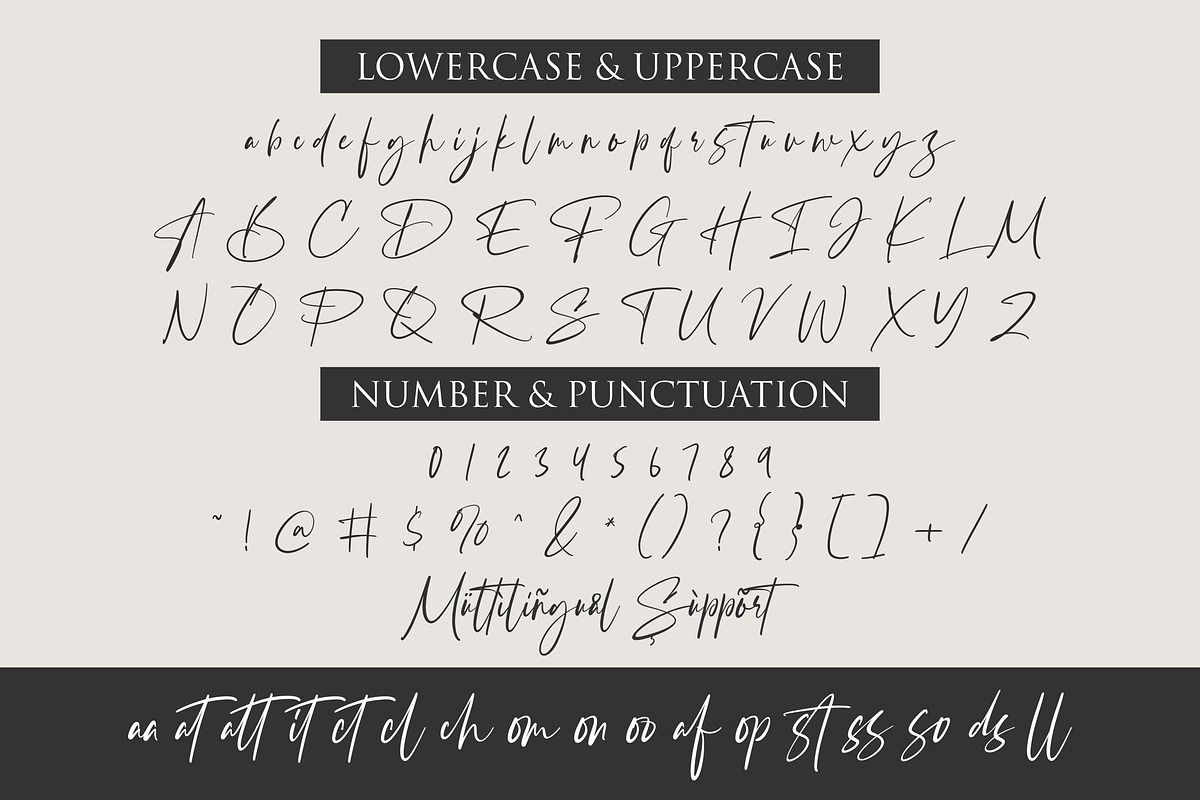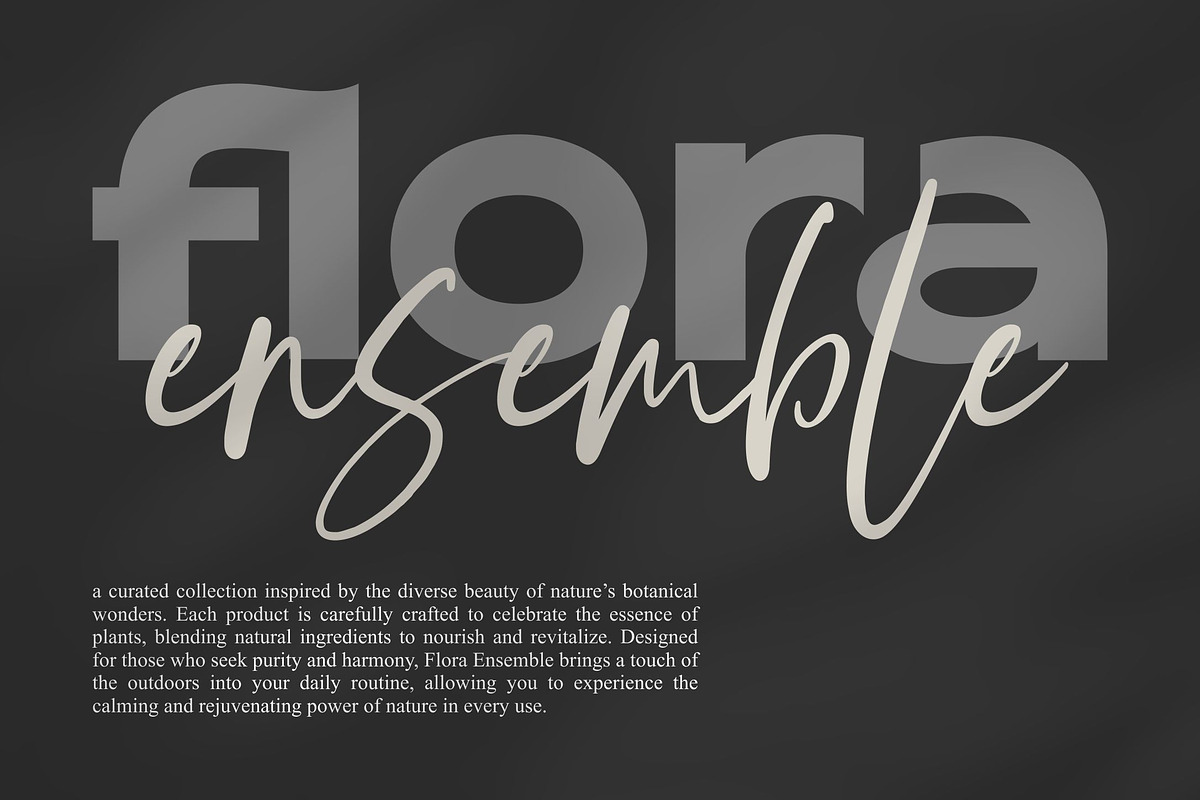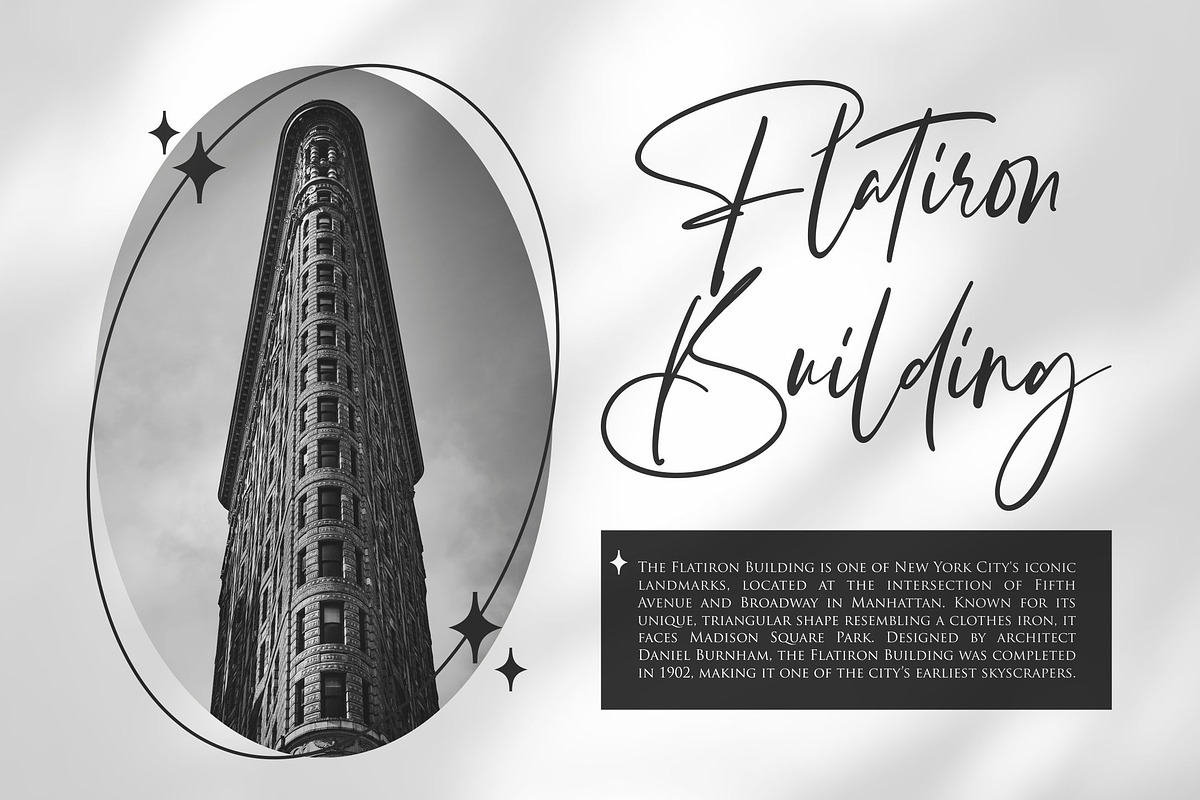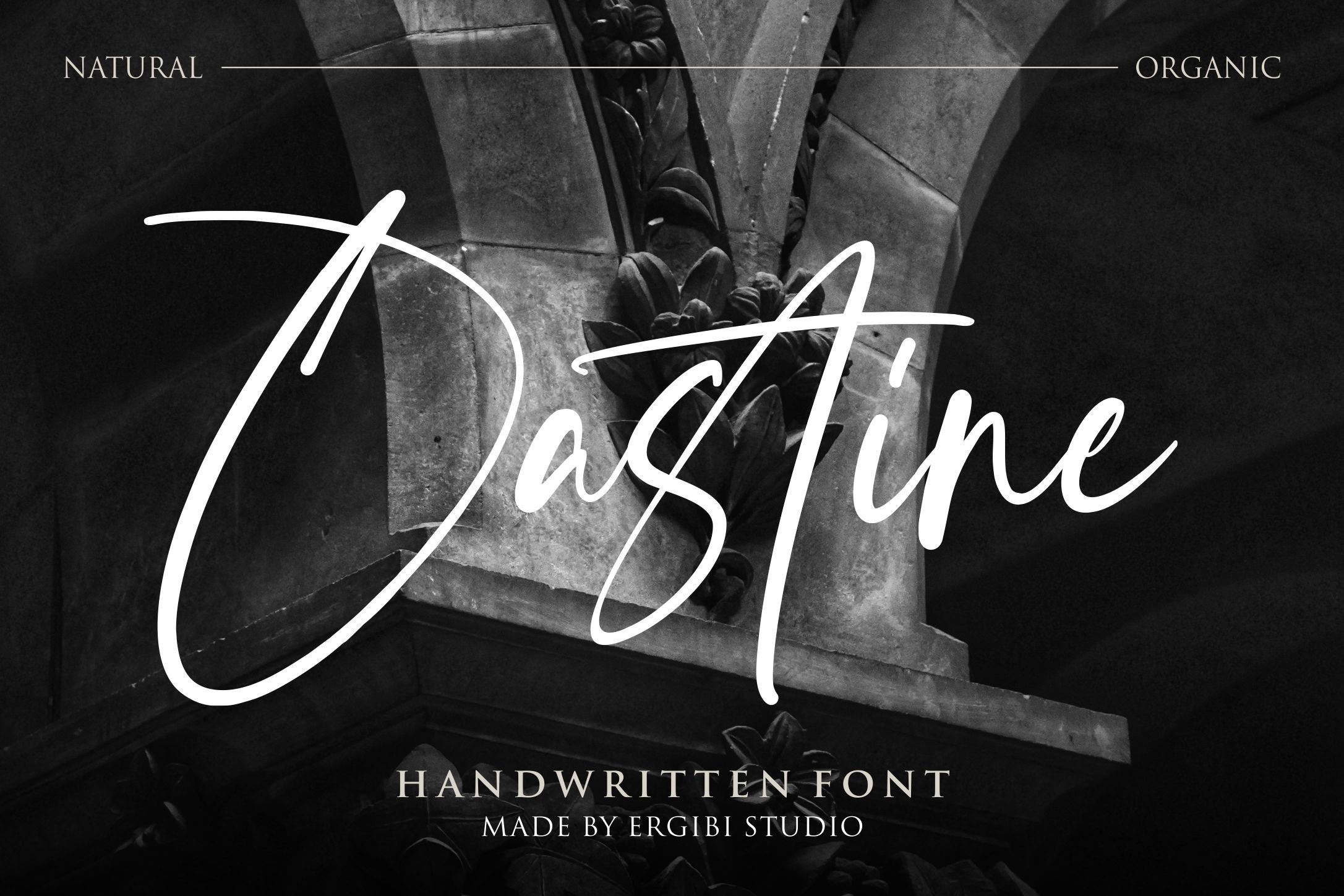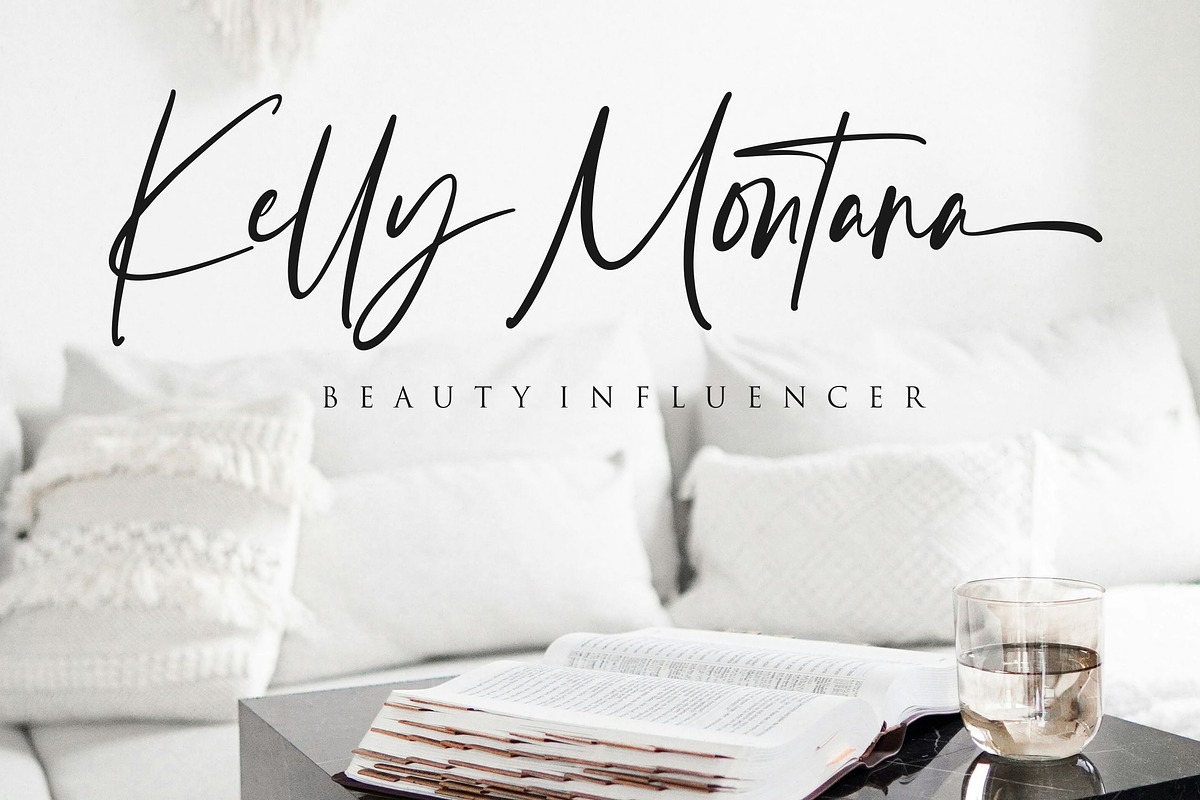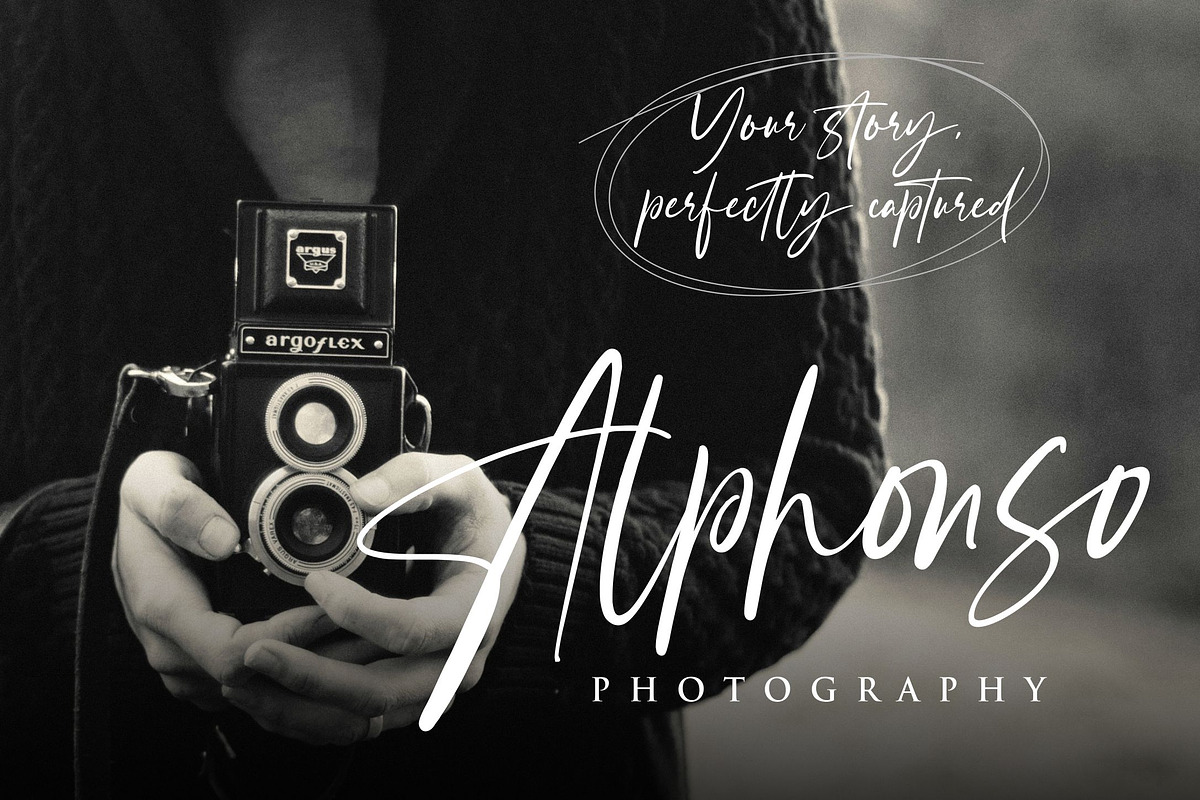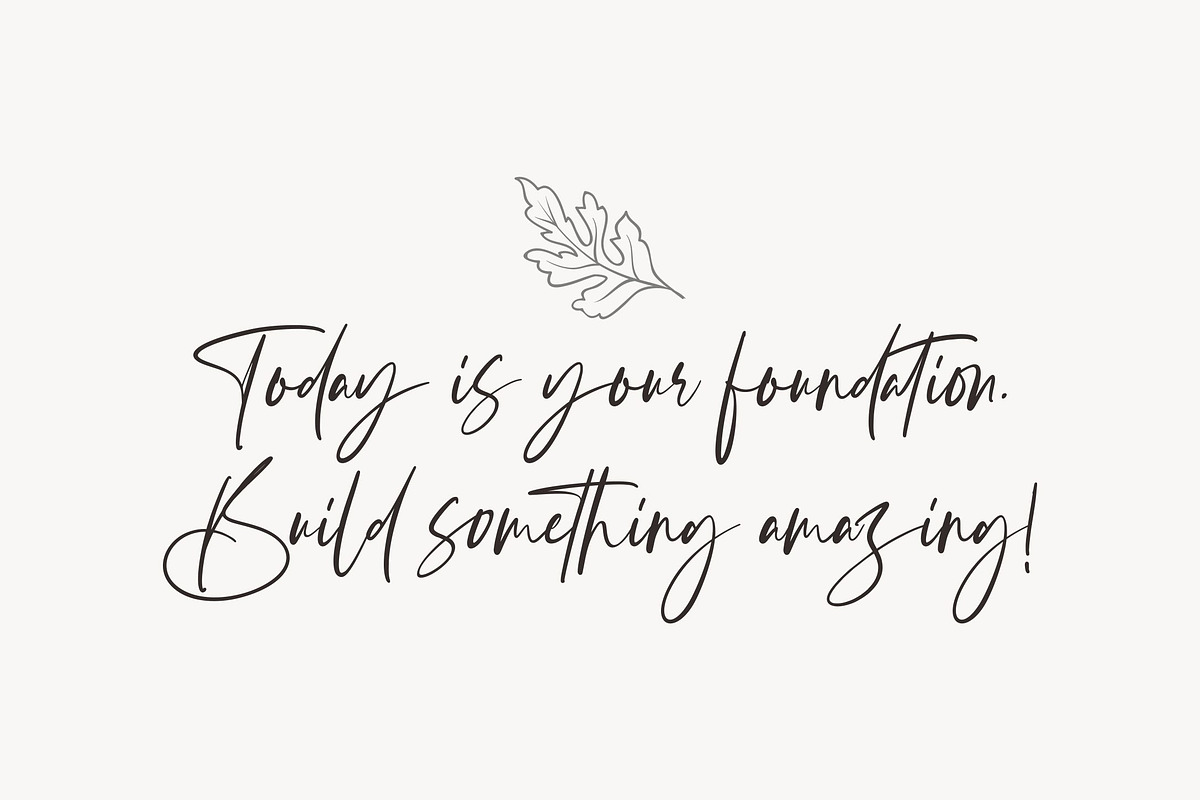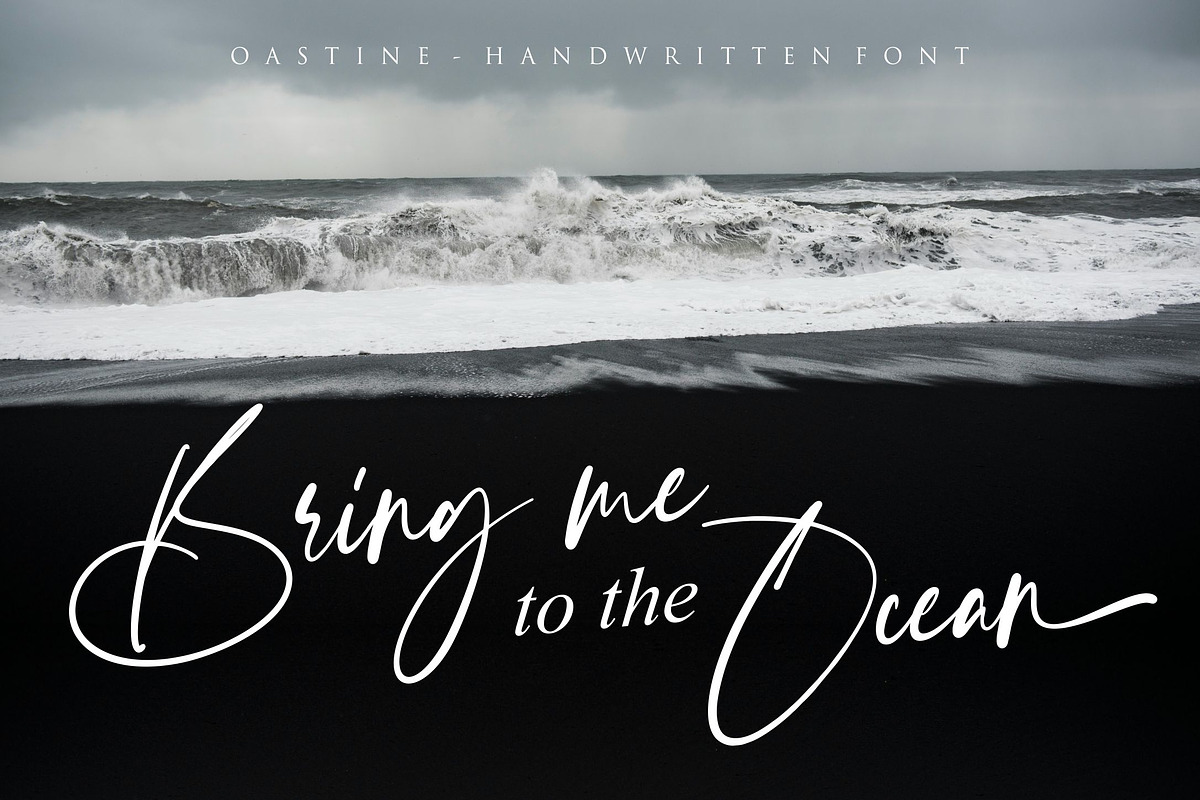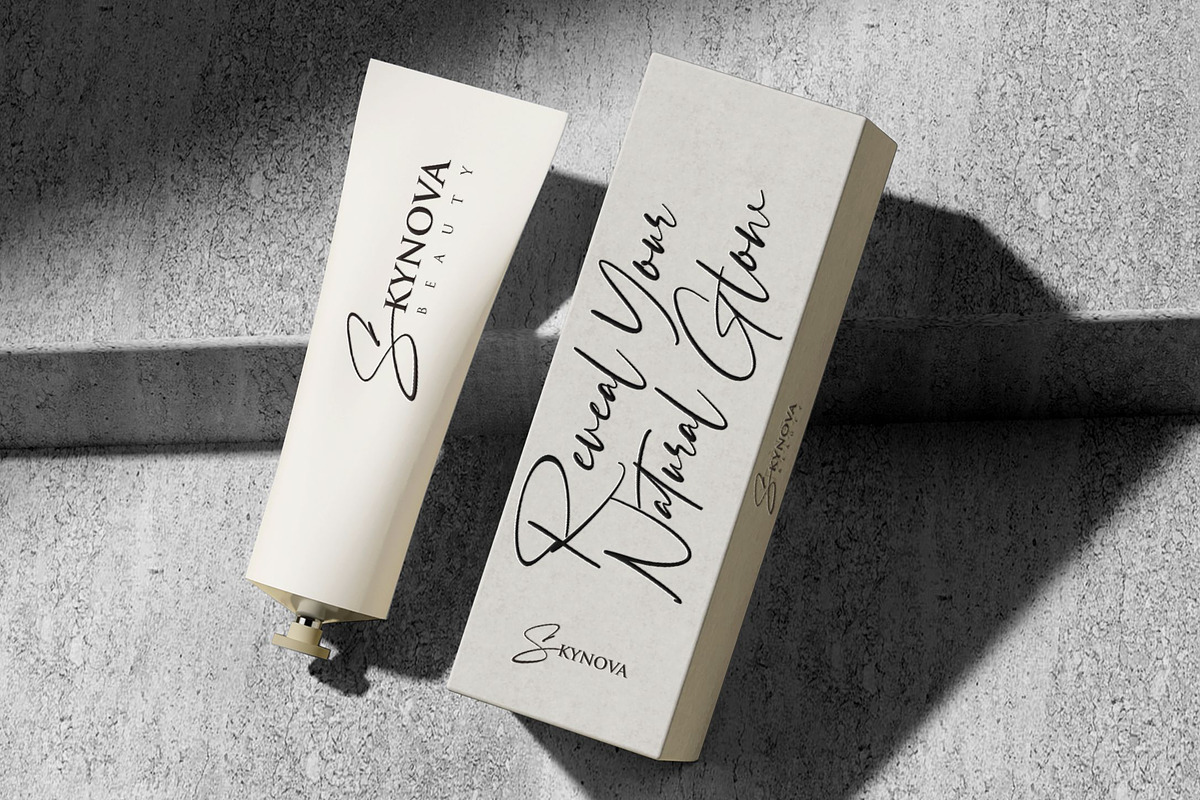
Oastine - Handwritten Font
Oastine handwriting, bringing a warm and organic feel to your designs. Each letter flows naturally, with smooth, gentle strokes that emulate the charm of hand-drawn script. Ideal for projects like invitations, journals, branding, and packaging, it adds a human touch that feels both authentic and expressive. "Oastine" blends the individuality of hand lettering with the practicality of a digital font, perfect for adding character and elegance to any creative project.